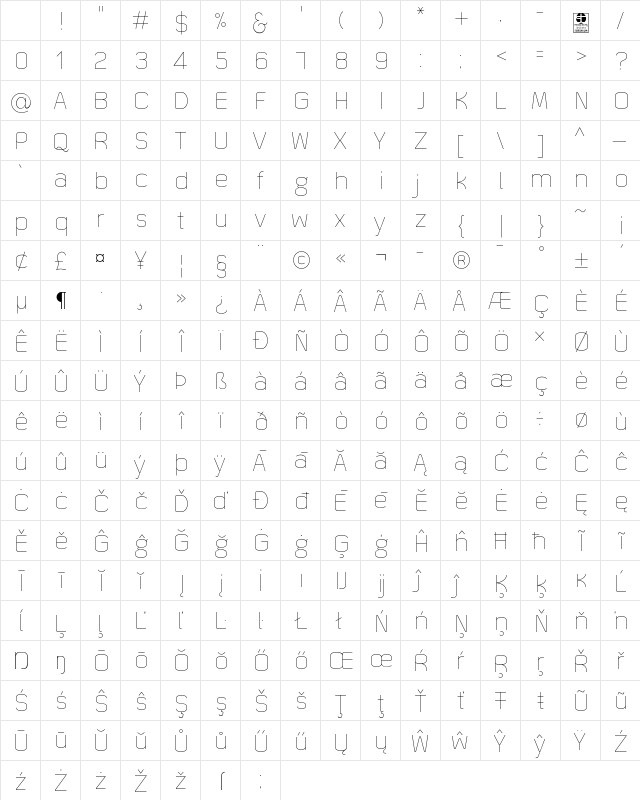
Quizma is a composed and adaptable typeface that performs quietly and consistently across a wide range of design contexts. Its slender proportions lend an understated elegance to any composition.